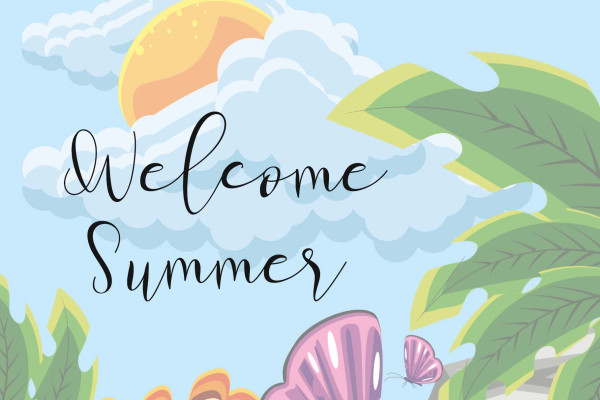
Summer Landscape Font
Summer Landscape Font is a beautiful and unique handwritten font. This font is equipped with uppercase, lowercase, numerals, punctuation, signatures, and multilingual support. It is suitable for summer, holidays, vacations, traveling, Father’s Day, graduation, the 4th of July, and others.